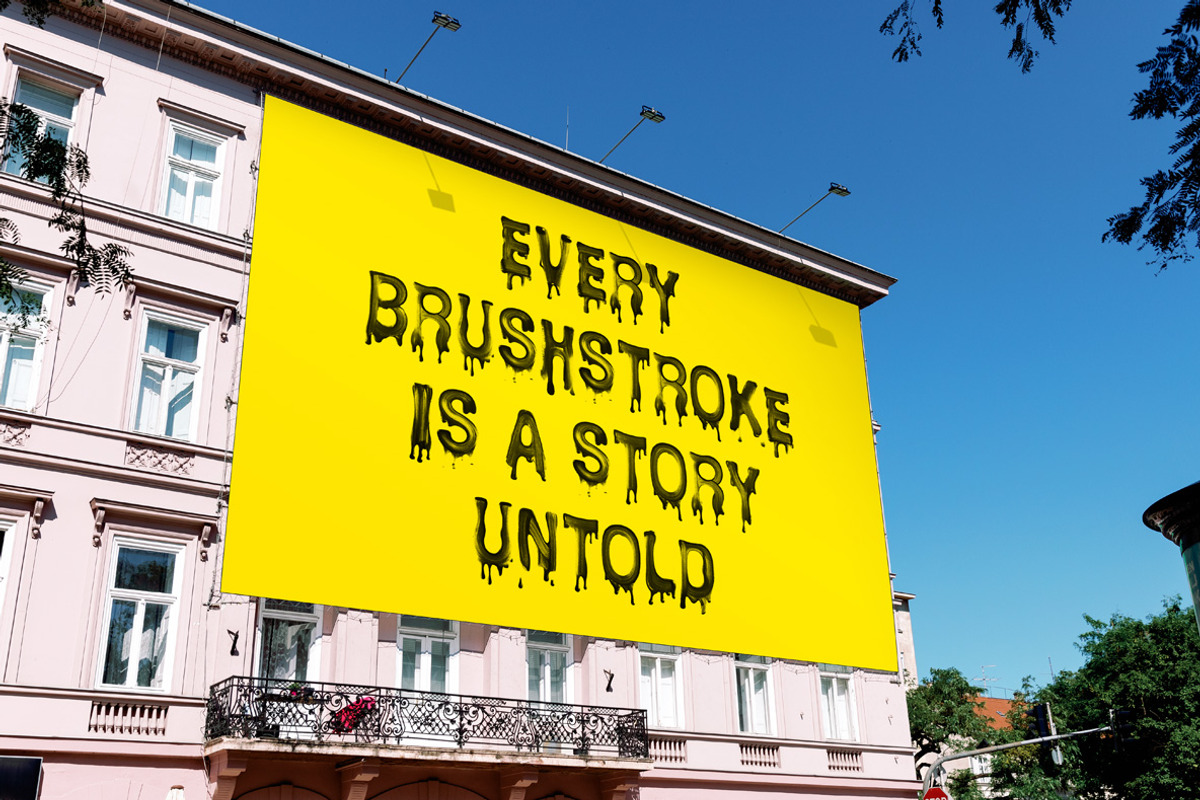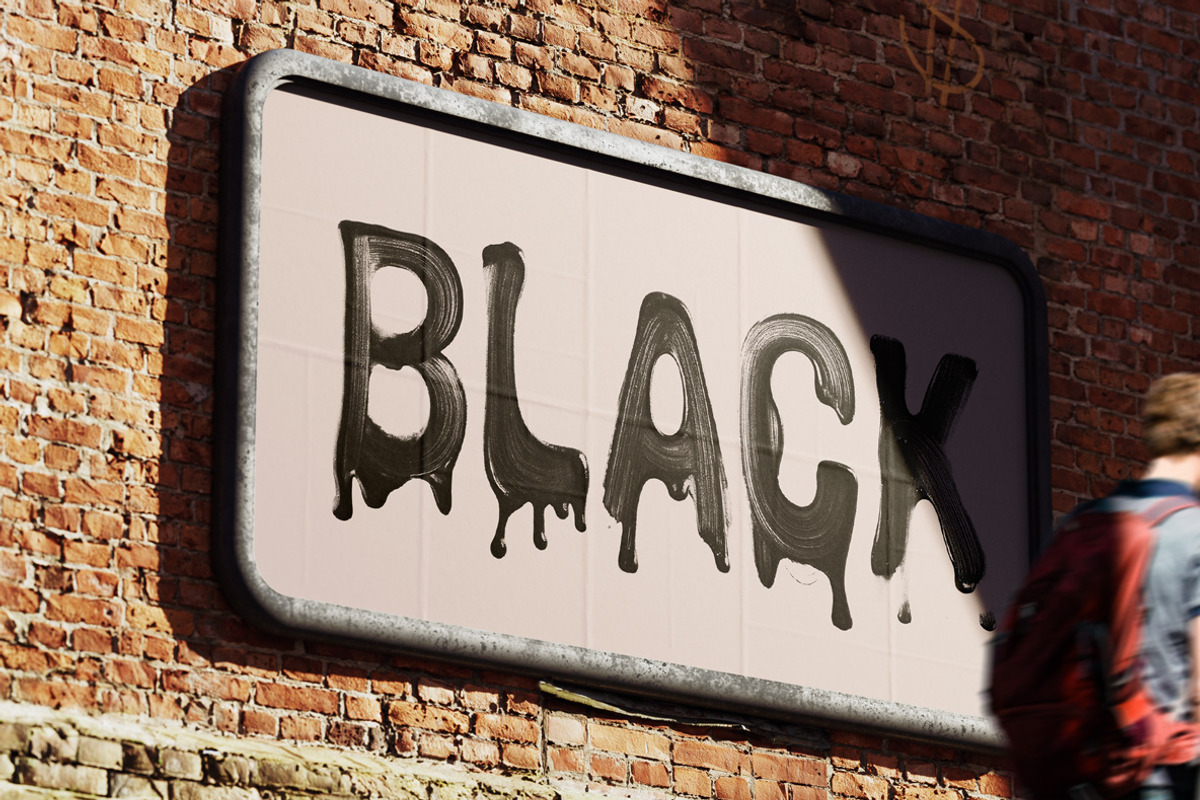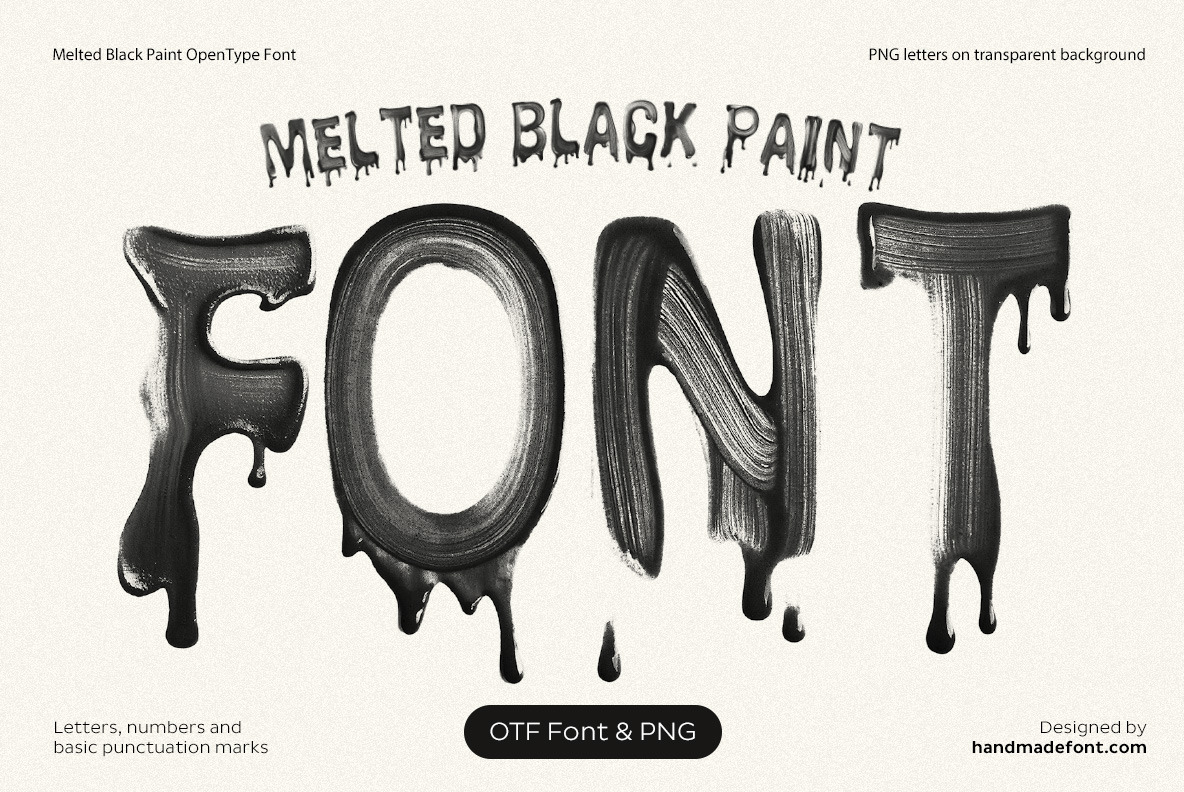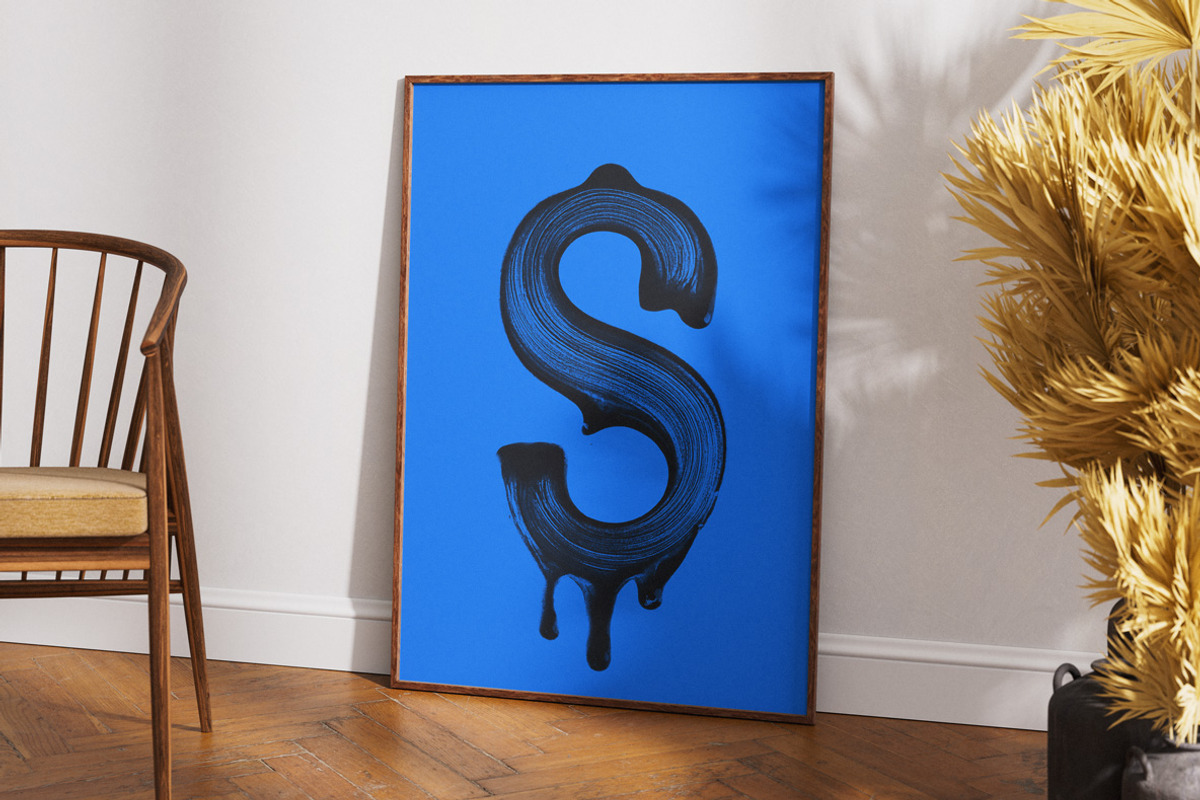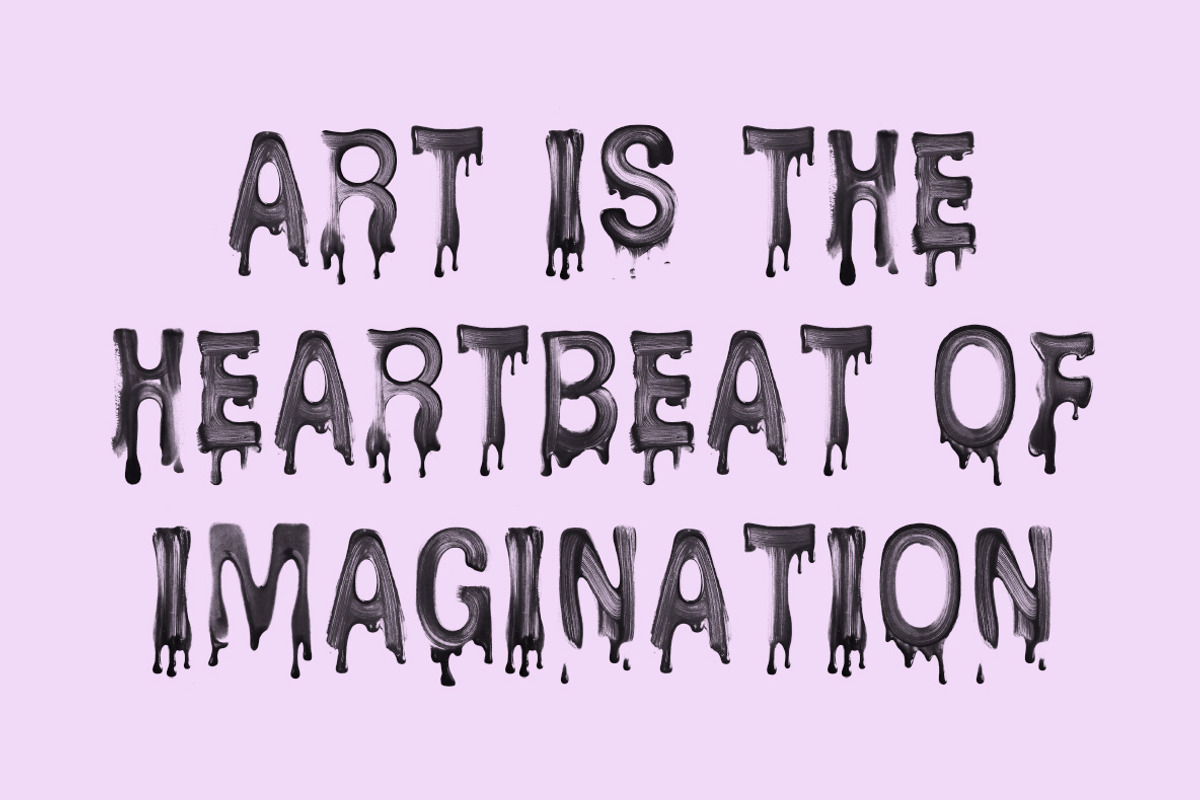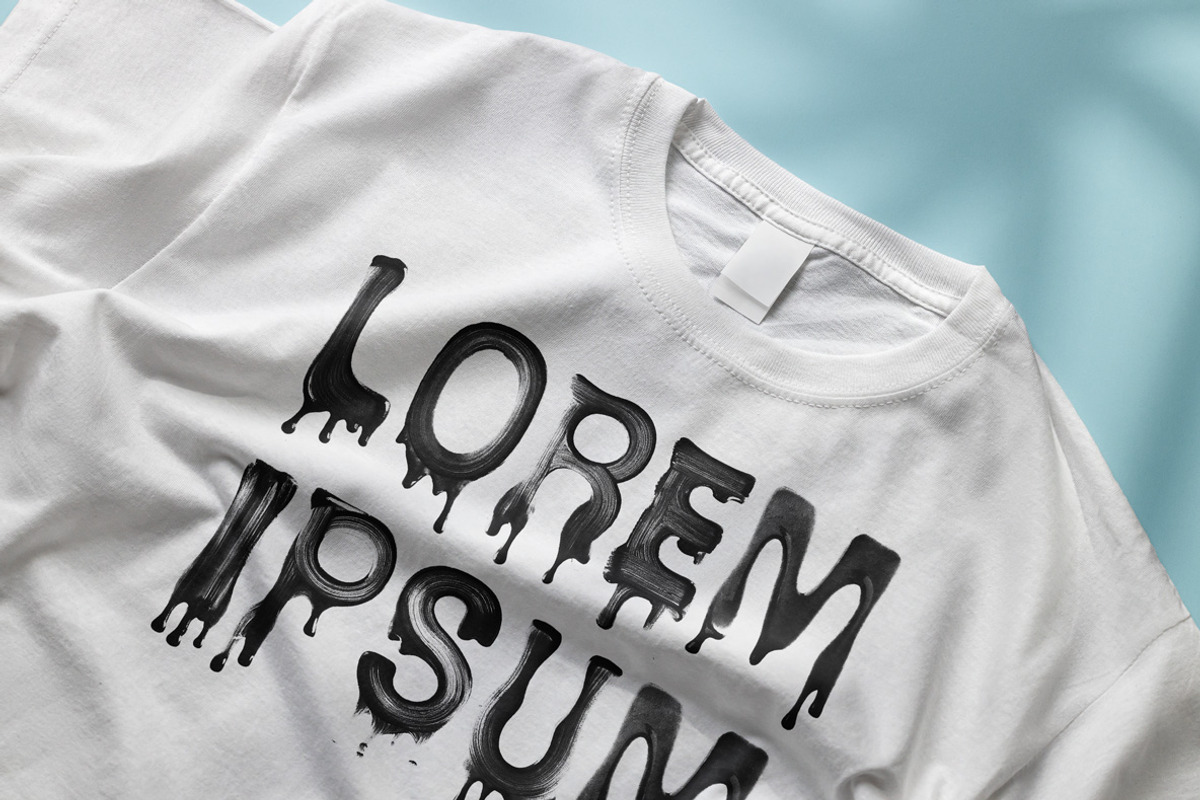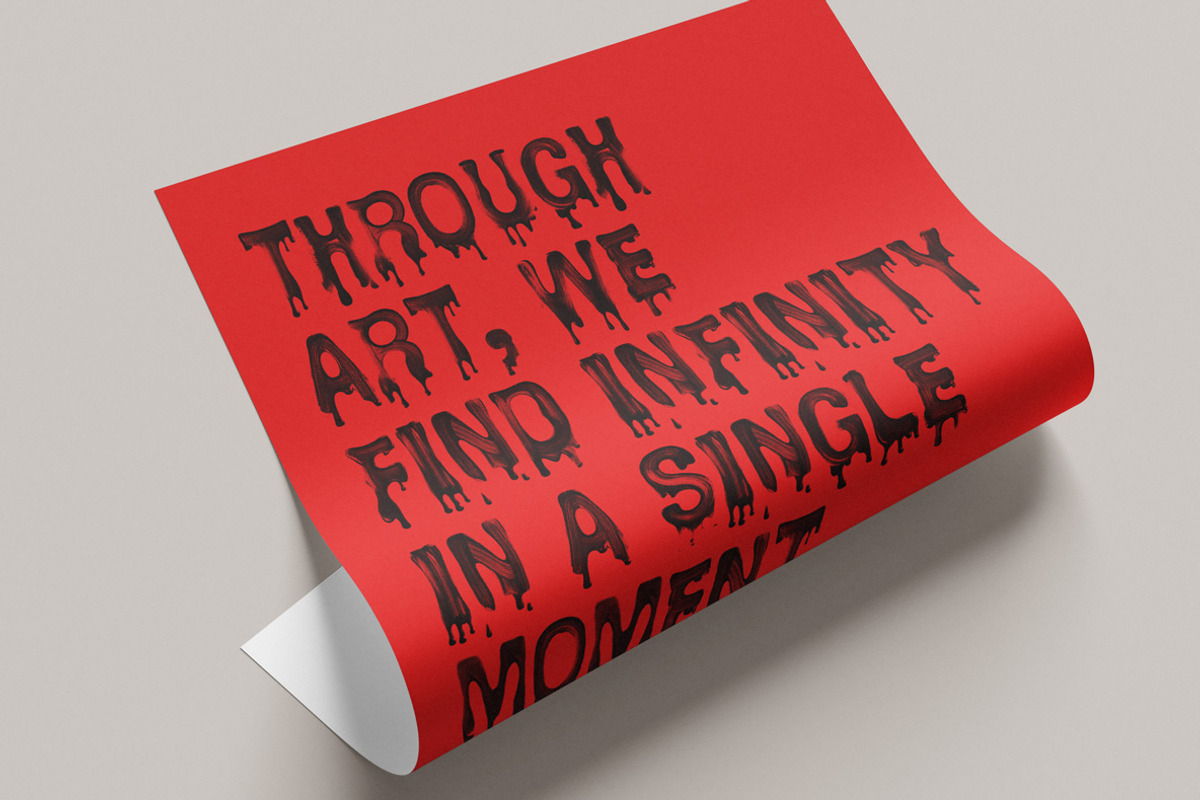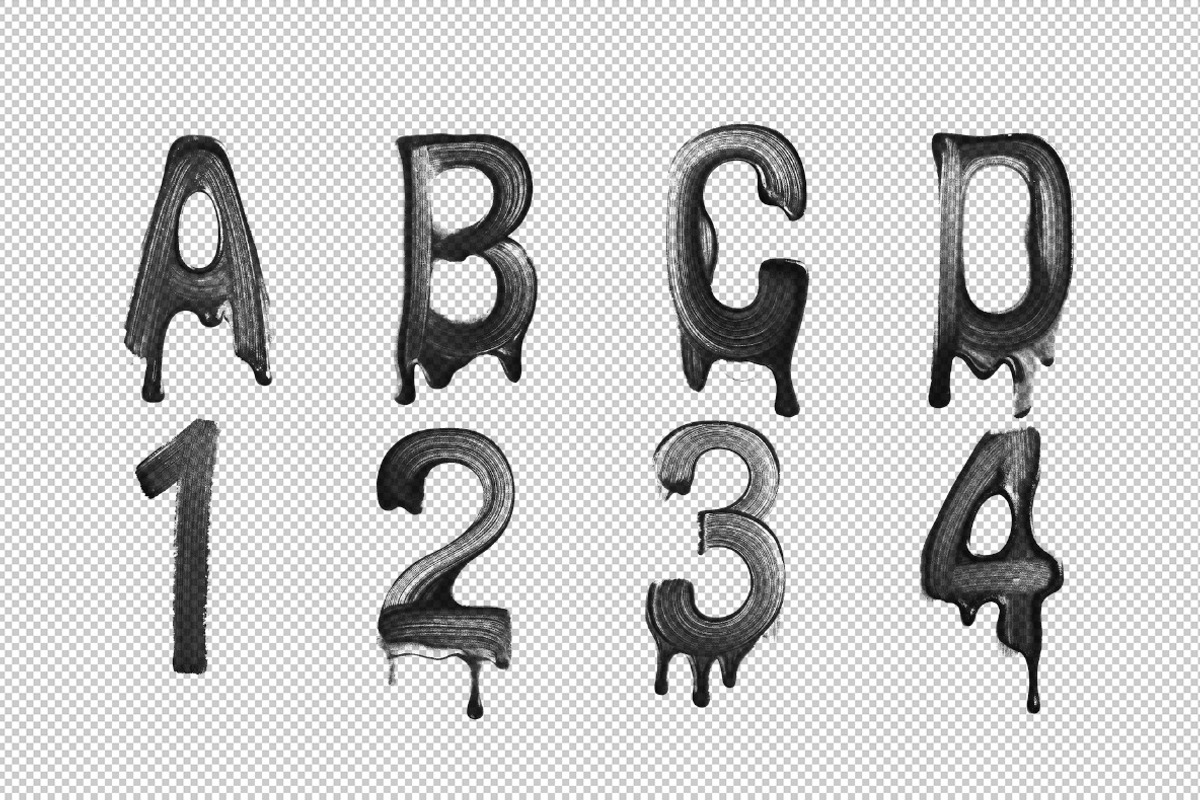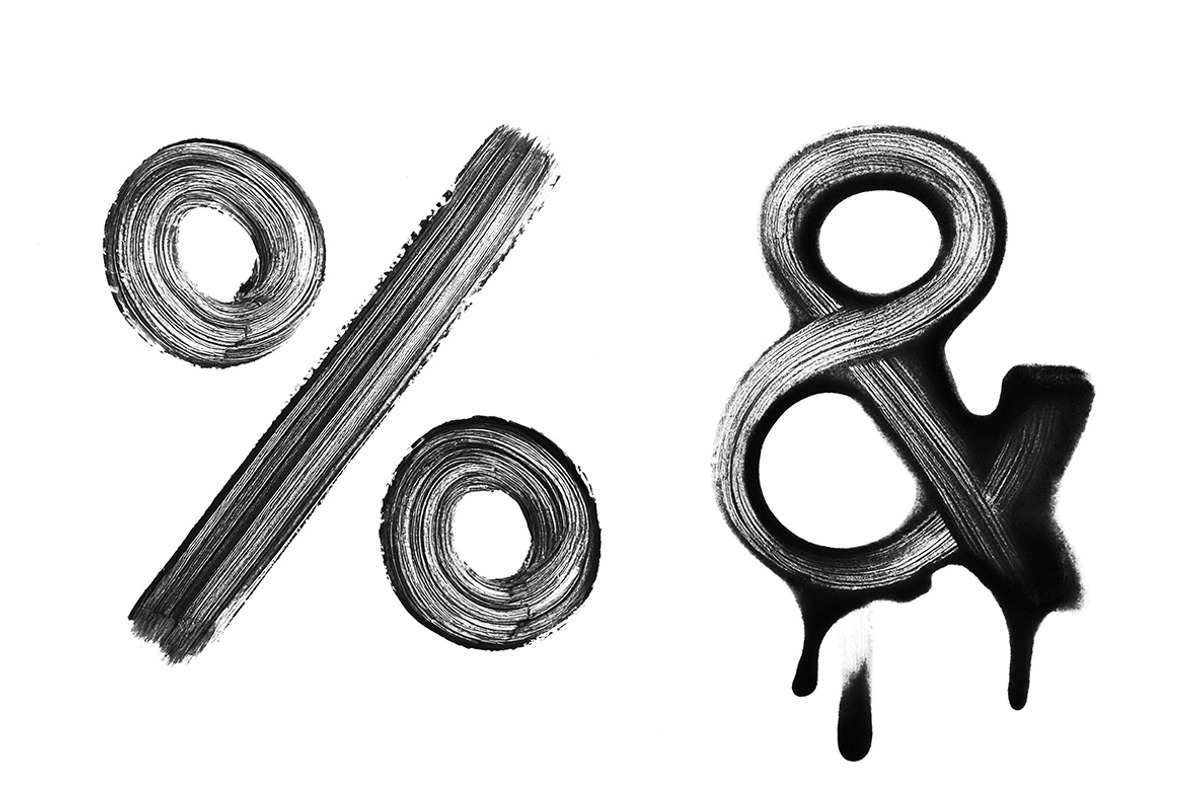
Melt Black Paint Font
Stroke meets art with the "Melt Black Paint Font," a bold and expressive typeface crafted from black paintbrush strokes. Each letter flows with dynamic energy, showcasing the raw texture and fluid motion of brushwork. Perfect for designs that demand creativity and edge, this stroke font brings a unique, hand-painted aesthetic to your projects. Ideal for posters, branding, social media, and more, it transforms typography into an artistic statement with every letter embodying the beauty of black paintbrush strokes.